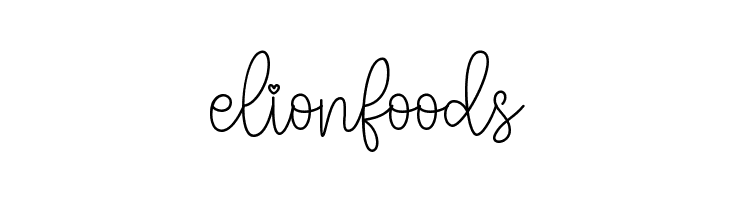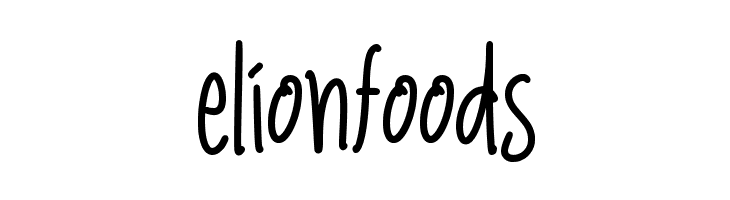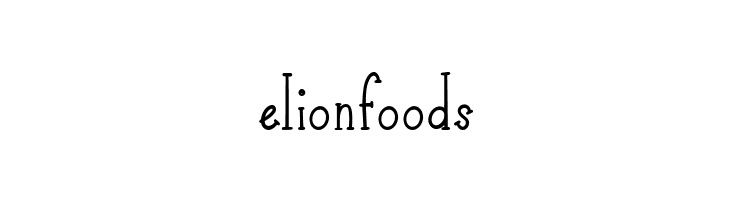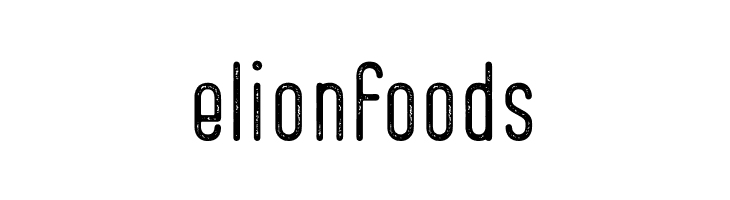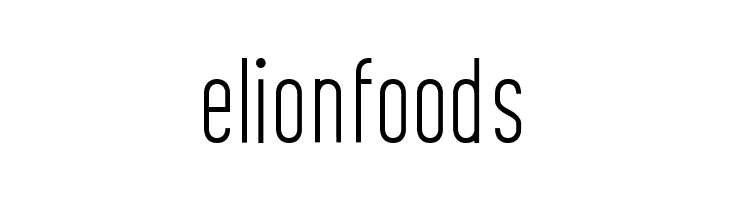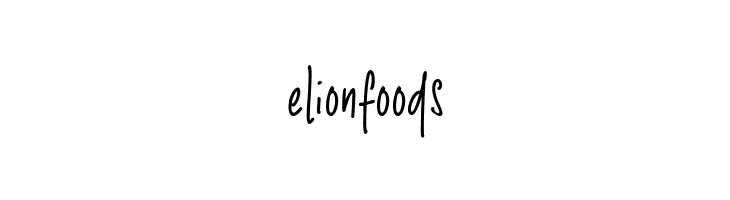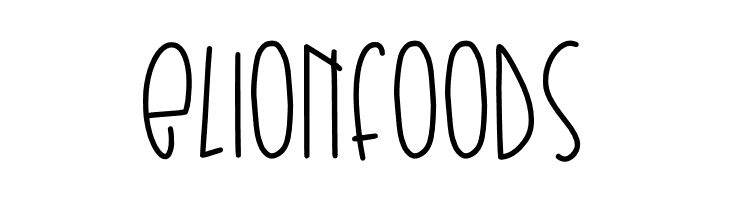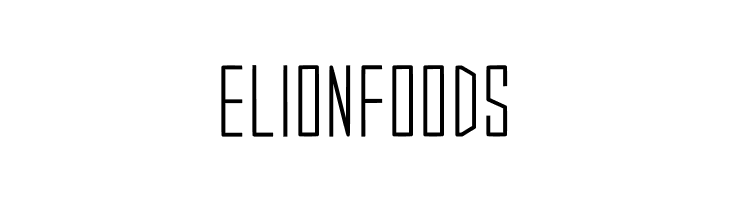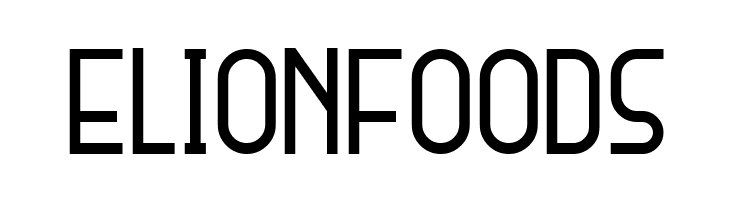
A whimsical handwritten font with heart embellishments and tall, narrow letters.
A playful, handwritten font with tall, narrow letters and a casual style.
A playful, whimsical font with tall, narrow characters and charming details.
A playful handwritten font with tall, narrow letterforms and a whimsical style.
A rough, vintage-style font with a tall, narrow design and consistent stroke width.
A modern, thin, and elegant font with elongated, narrow characters.
A playful, handwritten font with tall, narrow letters and a dynamic style.
A playful, hand-drawn font with tall, narrow characters and a whimsical style.
A modern, geometric font with elongated, narrow characters and a sleek design.
A modern, geometric font with tall, narrow characters and consistent stroke width.